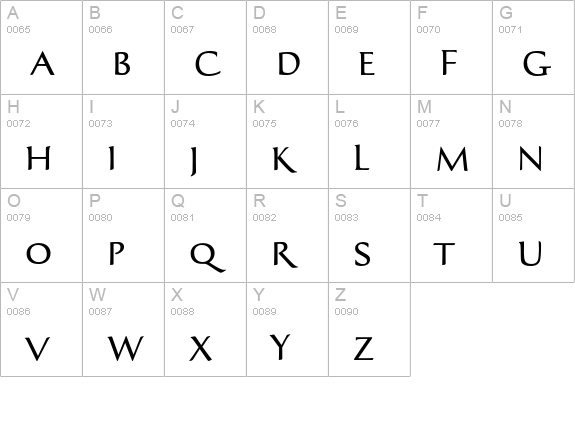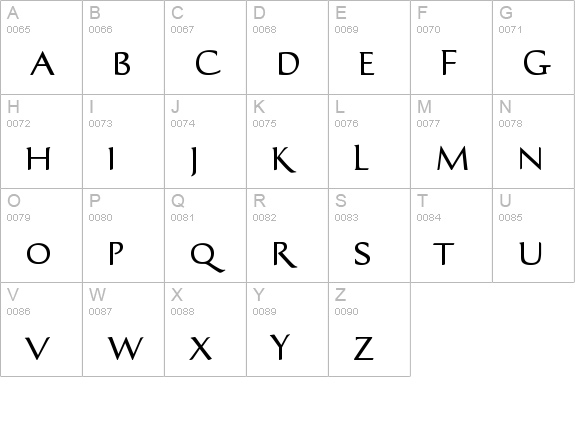
Oxalis Std Demi Bold Font Details
Oxalis Std Demi Bold is a sub-bold, structured variant in the Oxalis typeface family \xE2\x80\x94 well suited to sub-headlines and emphasised passages.